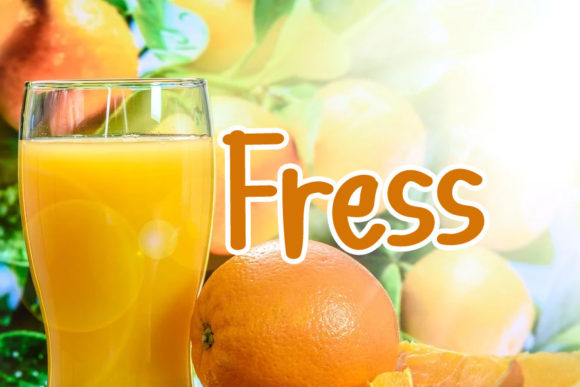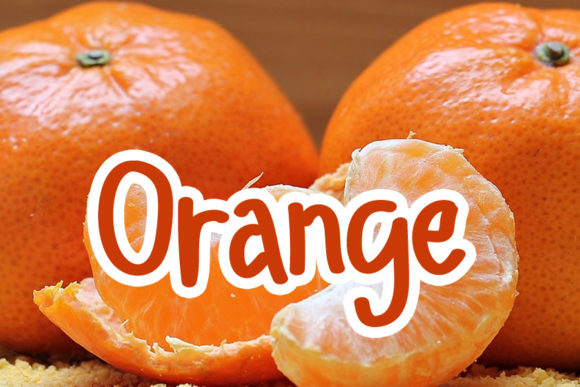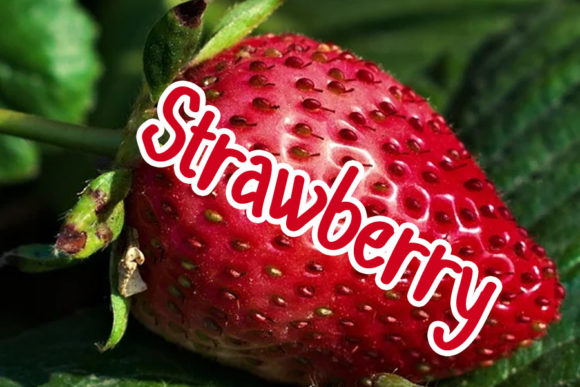
Introducing Guava Font: The Fresh and Beautiful Handwritten Font for Your Design Needs
In the world of typography, fonts play a crucial role in conveying the tone and personality of a design project. Whether you’re working on a book, magazine, advertisement, or corporate design, the right font can make all the difference. If you’re looking for a fresh and beautiful handwritten font that adds a casual touch to your designs, look no further than Guava Font.
What is Guava Font?
Guava Font is a stunning handwritten font that is perfect for various design purposes. Its unique and elegant style makes it suitable for a wide range of projects, from book texts and documentation to business reports, business correspondence, magazines, newspapers, posters, advertisements, multimedia, and corporate design.
Characteristics of Guava Font
So, what makes Guava Font so special? Here are some of its key characteristics:
- Handwritten style: Guava Font has a beautiful handwritten style that adds a personal touch to your designs.
- Fresh and elegant: The font has a fresh and elegant look that makes it perfect for designs that require a sophisticated yet casual feel.
- Versatile: Guava Font is versatile and can be used for a wide range of design projects, from print to digital media.
- Easy to read: The font is easy to read, making it perfect for body text and long-form content.
Use Cases for Guava Font
Guava Font is suitable for a wide range of design projects, including:
- Book texts: Guava Font is perfect for book texts, making it a great choice for authors and publishers.
- Documentation: The font is also suitable for documentation, such as user manuals and guides.
- Business reports: Guava Font can be used for business reports, making it a great choice for corporate designs.
- Magazines and newspapers: The font is perfect for magazines and newspapers, adding a touch of elegance to your publication.
- Posters and advertisements: Guava Font can be used for posters and advertisements, making it a great choice for marketing materials.
- Multimedia: The font is also suitable for multimedia projects, such as video scripts and presentations.
- Corporate design: Guava Font can be used for corporate designs, such as logos, brochures, and business cards.
Why Choose Guava Font?
So, why should you choose Guava Font for your design projects? Here are some reasons:
- Unique style: Guava Font has a unique style that sets it apart from other fonts.
- Elegant look: The font has an elegant look that makes it perfect for designs that require a sophisticated feel.
- Versatility: Guava Font is versatile and can be used for a wide range of design projects.
- Easy to read: The font is easy to read, making it perfect for body text and long-form content.
In conclusion, Guava Font is a fresh and beautiful handwritten font that is perfect for various design purposes. Its unique and elegant style makes it suitable for a wide range of projects, from book texts and documentation to business reports, business correspondence, magazines, newspapers, posters, advertisements, multimedia, and corporate design. With its versatility, elegance, and readability, Guava Font is a great choice for designers and crafters looking for a font that adds a casual touch to their designs.
Whether you’re working on a print or digital project, Guava Font is a great choice. So, why not give it a try and see how it can elevate your designs?